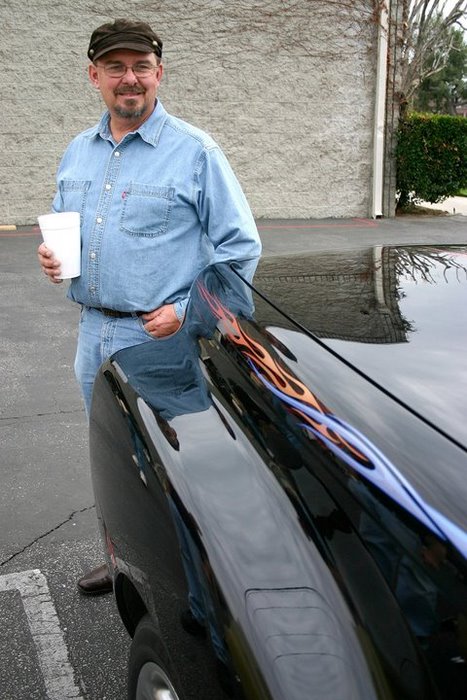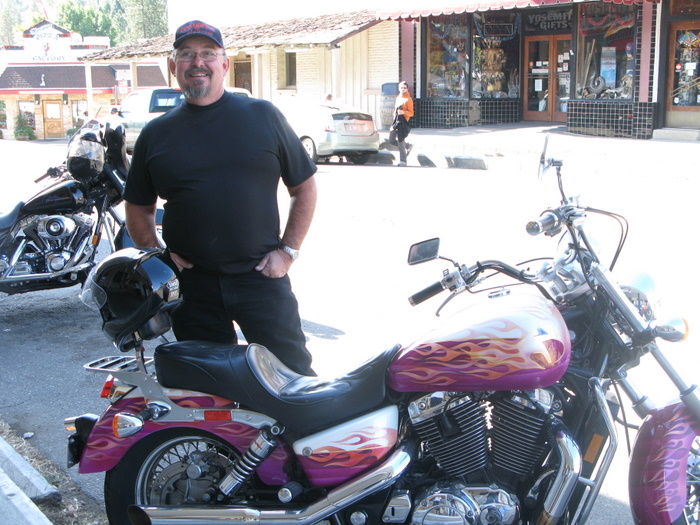
Harry Malicoat
I am sorry to say that my father passed away today. After surviving a motorcycle accident a couple weeks ago, he had a blood clot get to his brain at a physical therapy session. It was quick and painless.
He thought the world of so many of you here and looked forwards to see people at events. His life and his work were better for knowing you.
Louise called and delivered this news. With deepest regrets I'll head out to my truck at daylight and examine the lines Harry put on it and remember the wonderful moments together.
Condolences to you and your family Ric.
Like others, I've talked with Harry over the years. With this news, it seems like just yesterday we sat together working on a project at a Memorial Conclave at Rod's.
All the best to the family.
I am very sorry to hear this. Harry is a wonderful talent
in so many different aspects of art and his trade. I have
one of his watercolor prints of the Rick Glawson portrait
that he painted hanging here in Machine. He will be greatly
missed.
Harry was a great guy, very skilled with a lot to offer, he left too soon & will be greatly missed by all who knew him...........
Wow . . . I'm so very sorry for your family's loss. Harry was unique to say the least.
I had the pleasure of Harry pinstriping my Toyota 4-Runner in Fargo back in 1996 . . . Tramp Warner walked up to him - took a look all around the truck and said to Harry: "Very polite, Harry."
When Tramp walked away he said "Those are the comments that mean the most - from someone who understands."
Years later he and his family members stopped in tiny ol' Belvidere after being in the Midwest for motorcycle races - and Harry wanted to see me and to look at the murals. We all went to lunch and had a great time.
Last I saw of him was in Lodi in 2006 . . . and we spoke for an hour before he had to go. He was far more talented than just his brush skills showed . . .
Such a loss and such a talent . . . I'm dumbstruck. I had come to believe that he was invincible after all his other motorcycle 'challenges' through the years.
Harry was TOPS. I am very sad for you family's loss, and also for the passing of a great artist. Harry had such an enthusiastic and sharing nature. He really embodied the Letterhead spirit.
And his Faux-Embossed truck lettering effect was second to none. It completely faked me out. And that gave him a big laugh. I also saw Harry at Lodi in 2006, and it was a joy to be with him.
Please accept my heartfelt condolences.
Harry was a good talented pinstriper signwriter and watercolorist, and always had a story or two.
He will be missed.
Last September, on his birthday, Harry called me, said he was in Lodi at the Foster Freeze,
thought he would stop by. I was glad to be at the shop when he did call, he was only 8 blocks away.
Seems he always went for a ride on his birthday, we had a good visit. I missed him a few months later at the
Auto Show at Cal Expo.